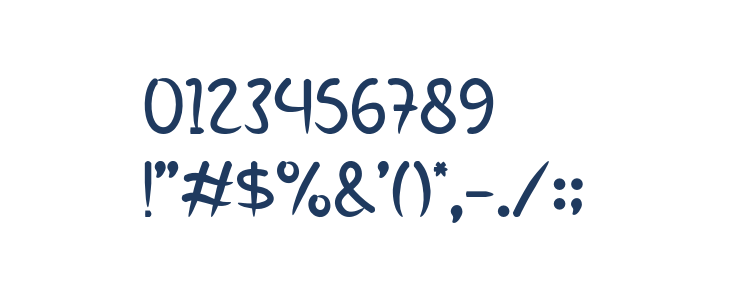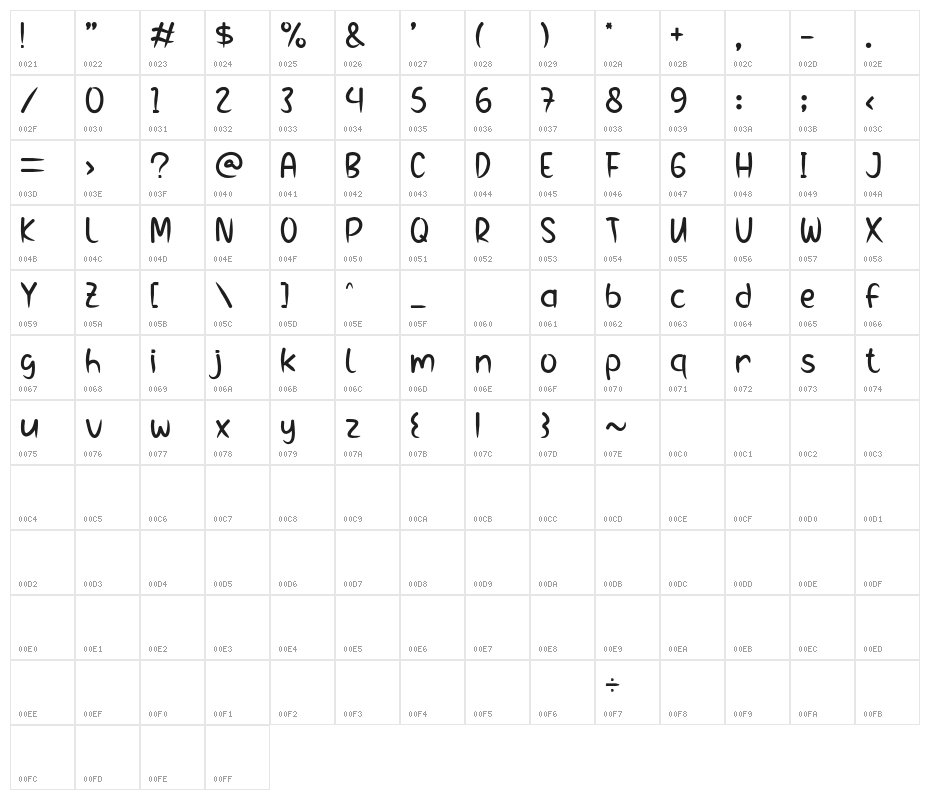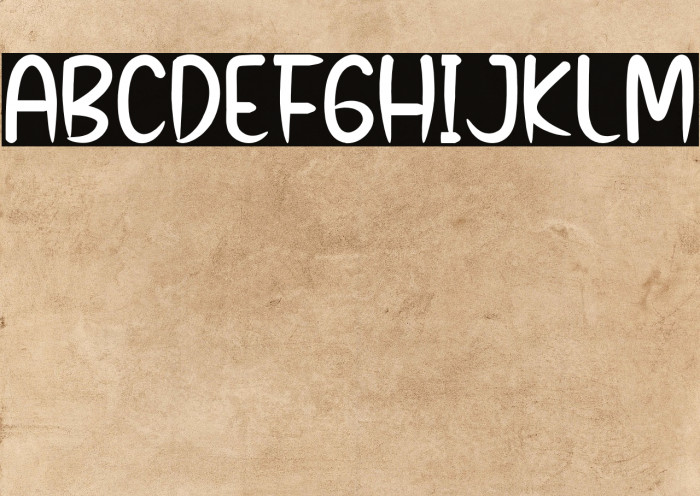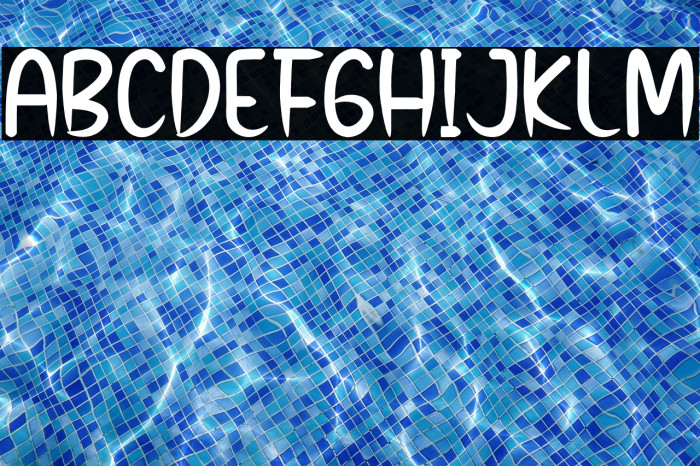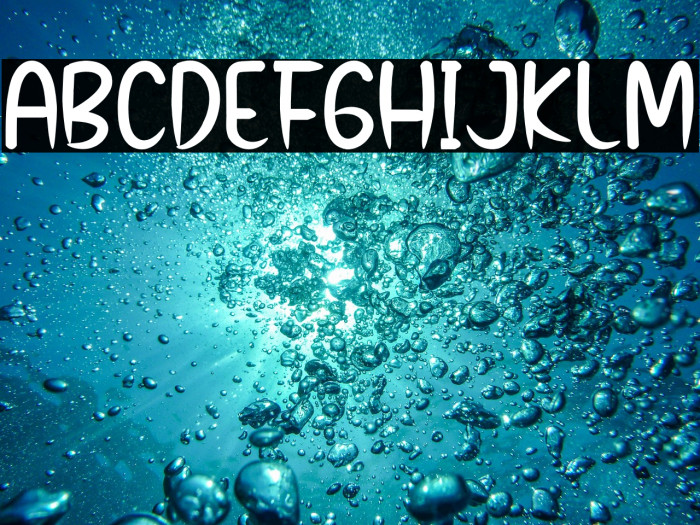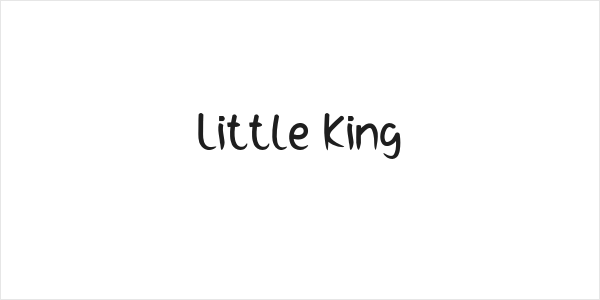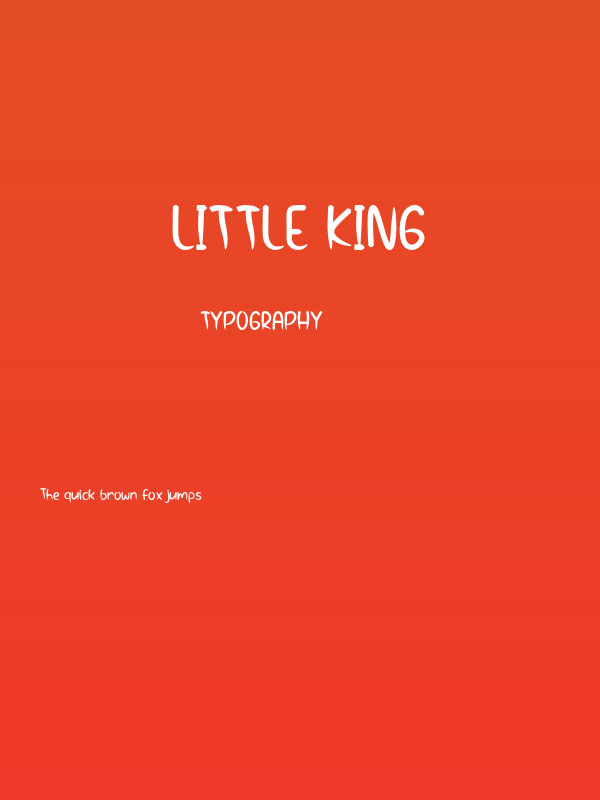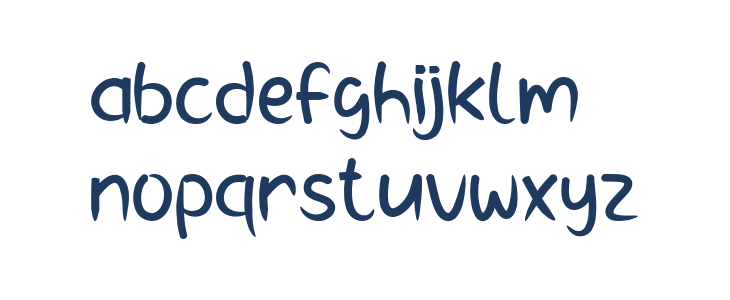
Little King Font
Little King Description
This playful and whimsical font features a hand-drawn aesthetic with smooth, rounded edges and a casual, friendly appearance. The characters are slightly irregular, adding to the charm and informal style. The uppercase letters are bold and prominent, while the lowercase letters maintain a consistent flow with a slight slant, giving a sense of movement and energy. Numbers and special characters are designed to match the playful tone, making this font ideal for creative and fun projects. The overall look is approachable and lively, perfect for capturing attention in a lighthearted manner.
| Proposed Projects | Ideal for children's books, playful branding, greeting cards, and casual invitations. |